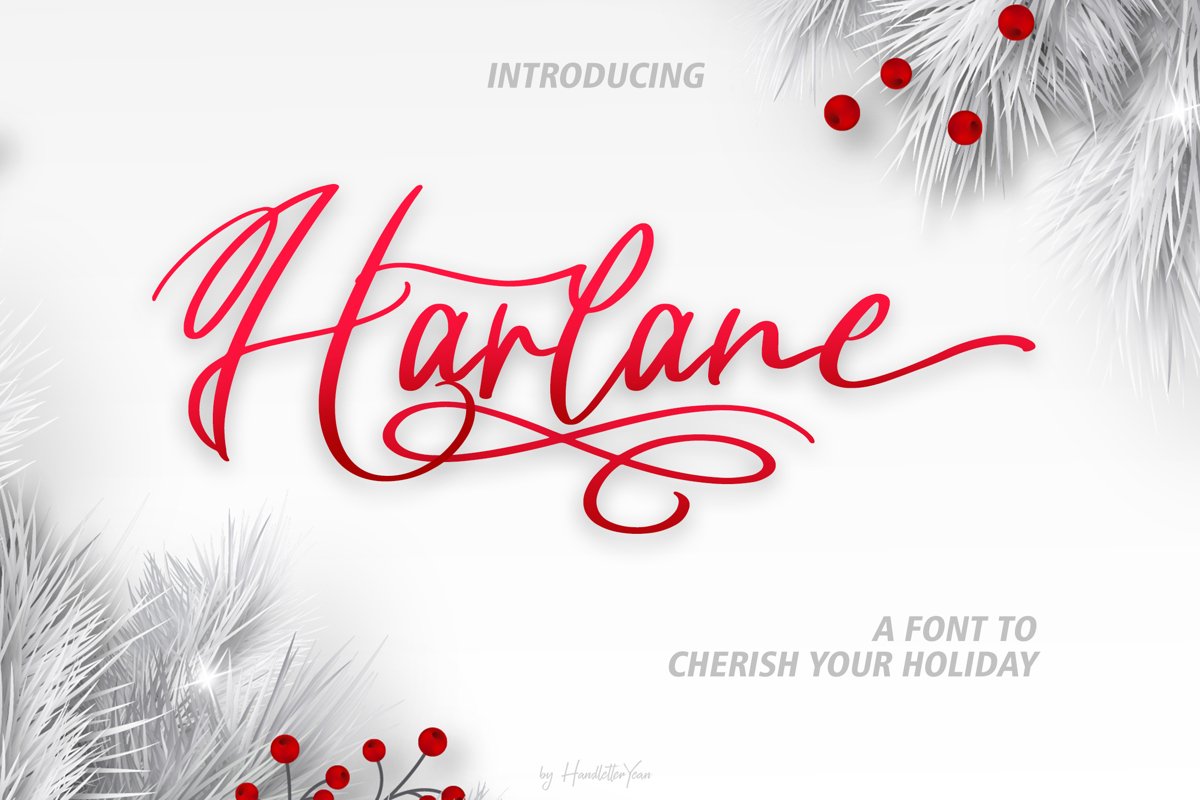
Harlane
Winter with all its activities always has a special meaning for us. Harlane is here for you to cherish your holiday and make it more meaningful. Harlane features are alternates, titlings, swashes, and underlines that will make your idea looks more beautiful. Feel free to use this font for your craftwork, book, cover, name card, poster, logo, magazine, cover, banner, T-shirt, or even artwork on a large scale.
6. Support multilingual; ä ö ü Ä Ö Ü ß ¿ ¡